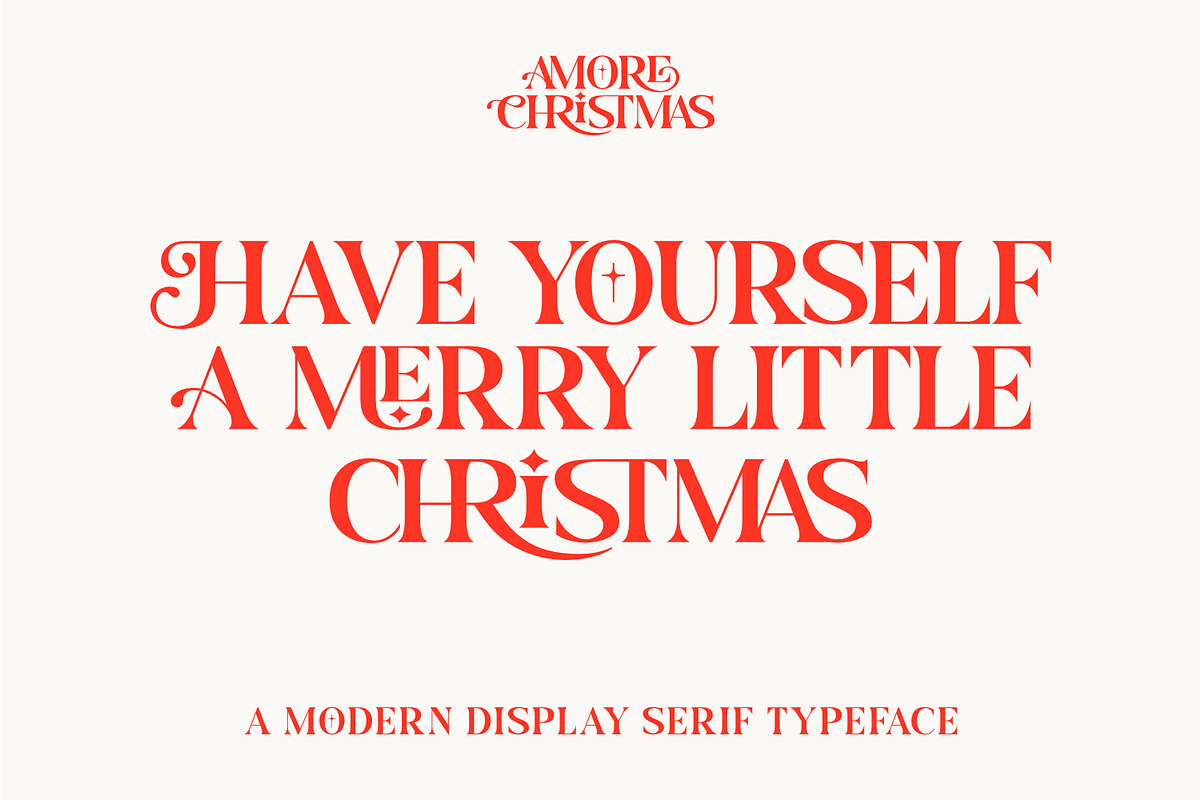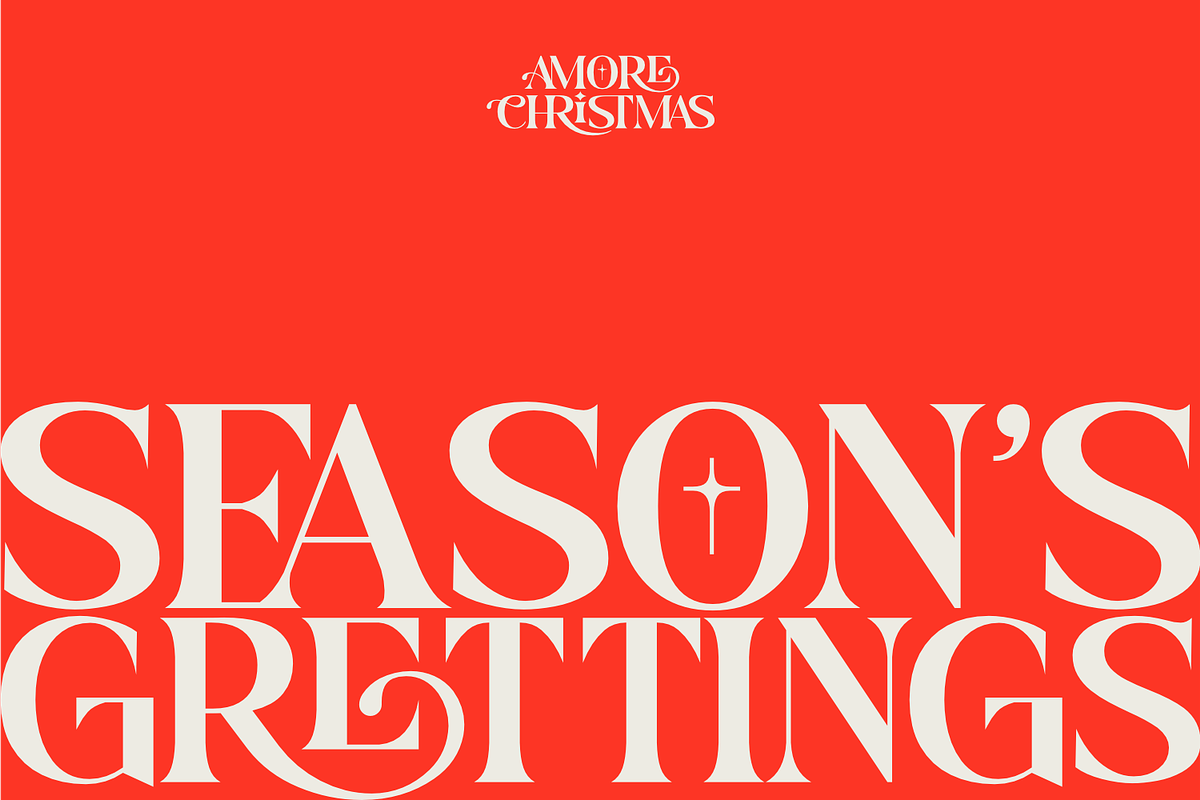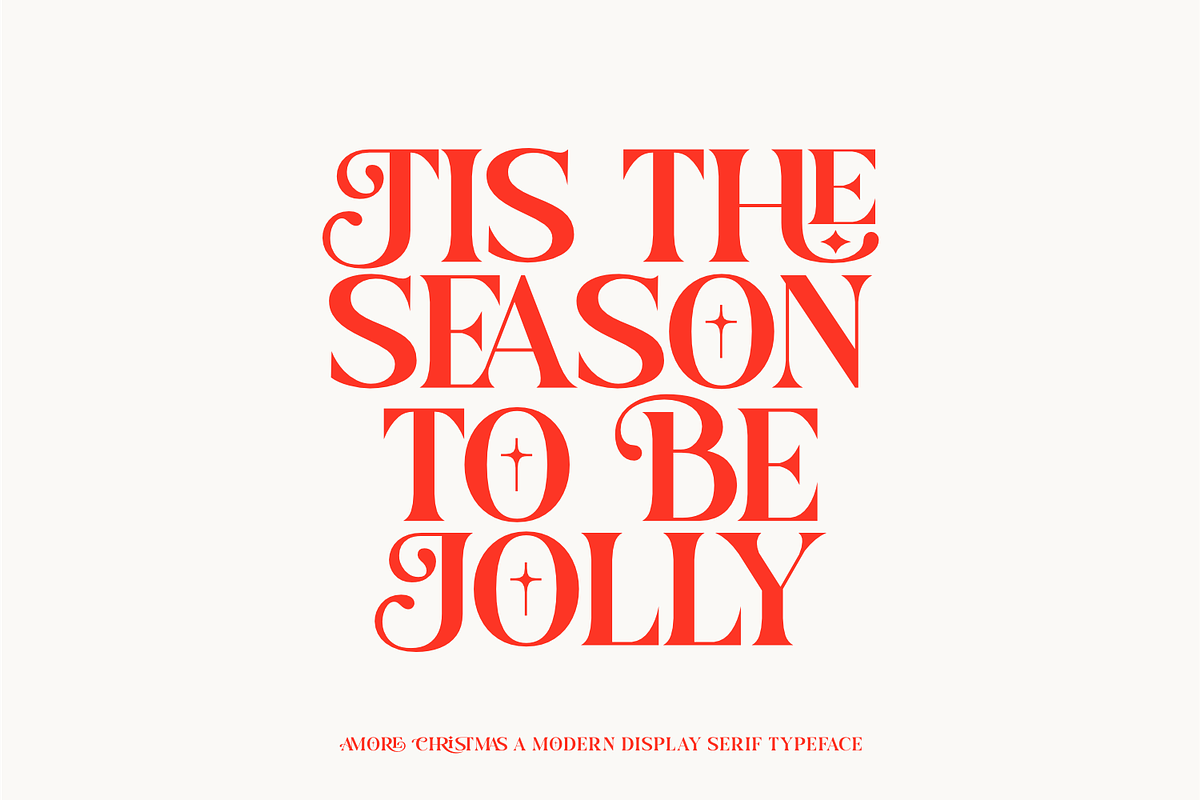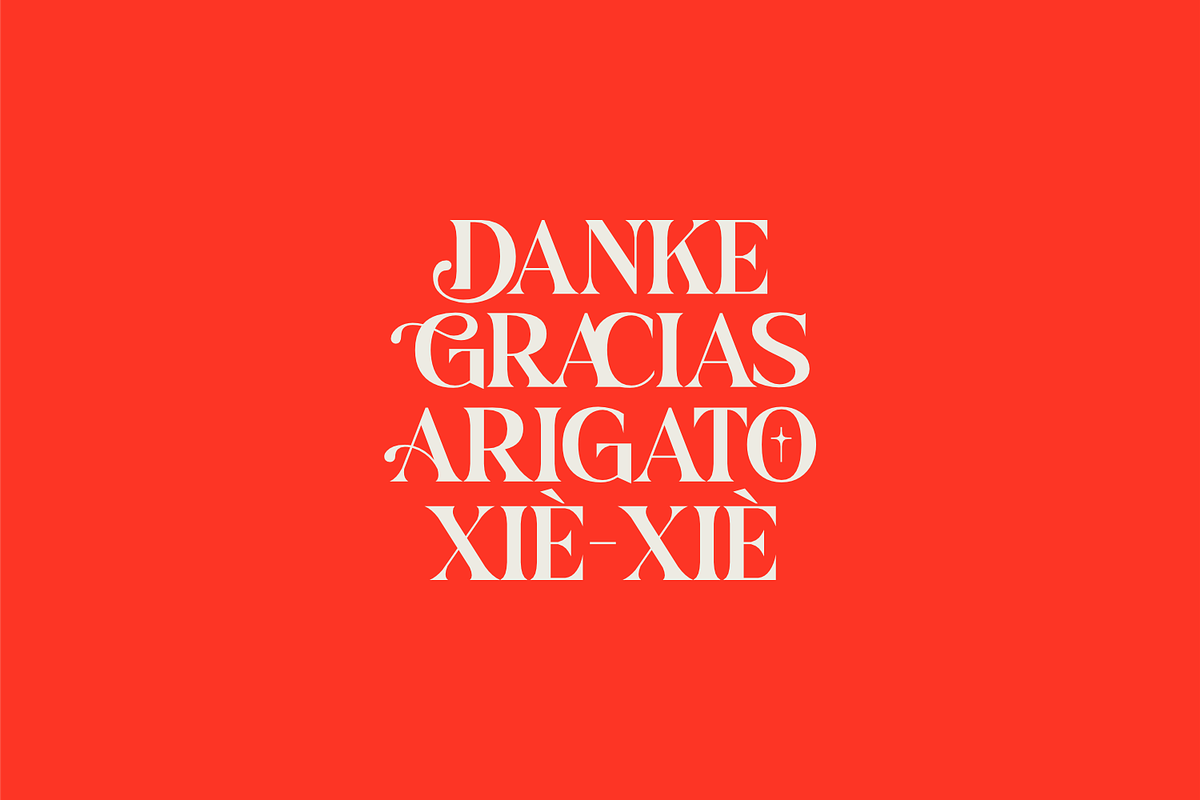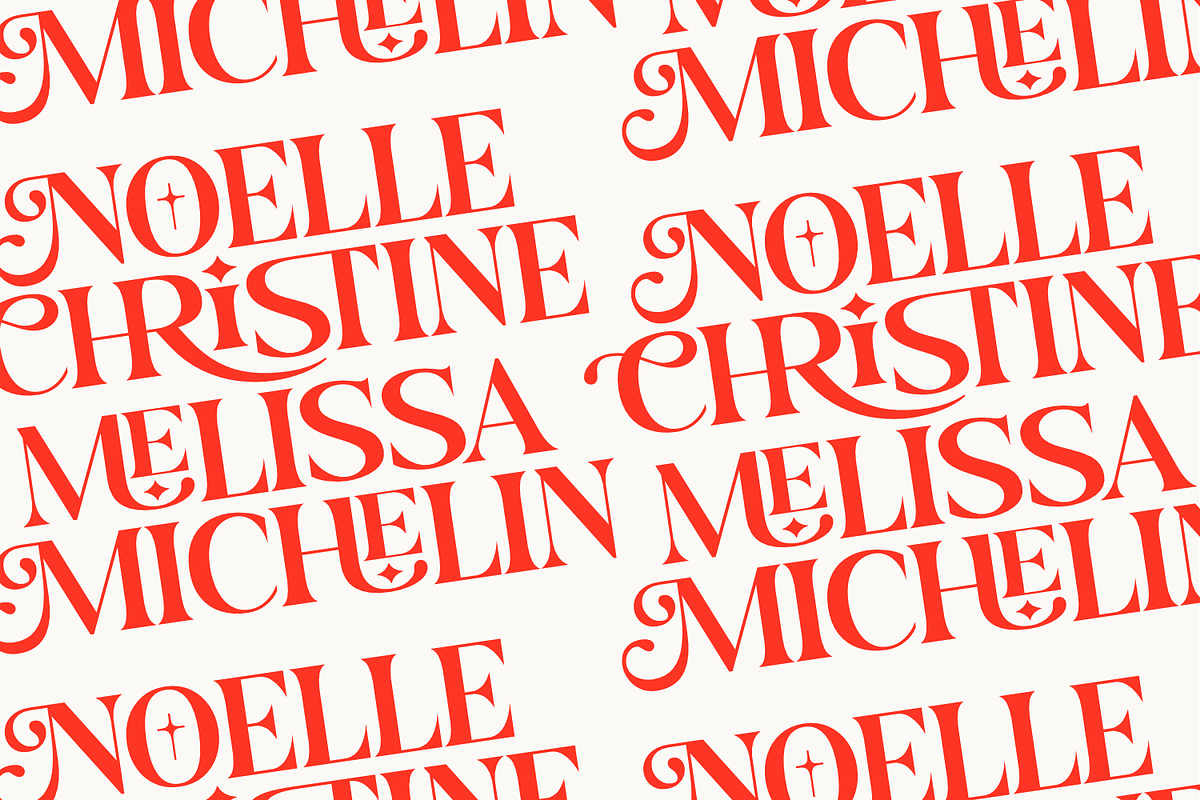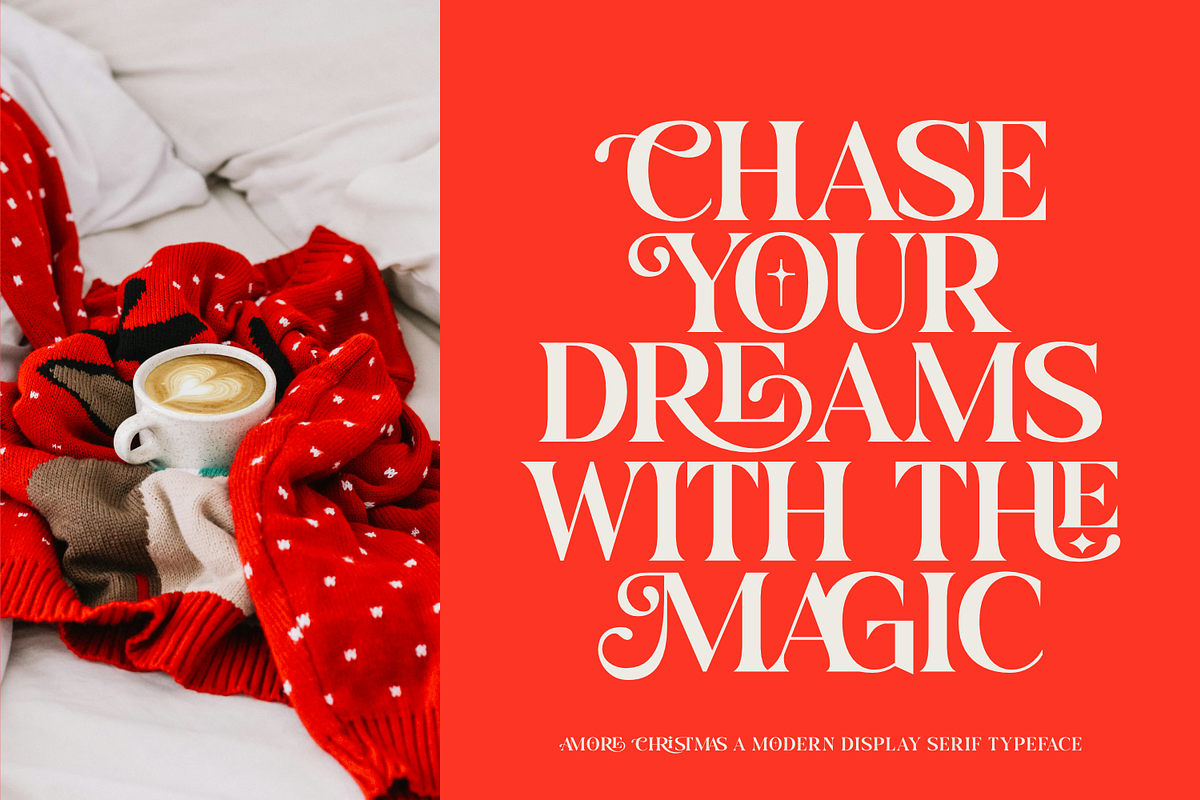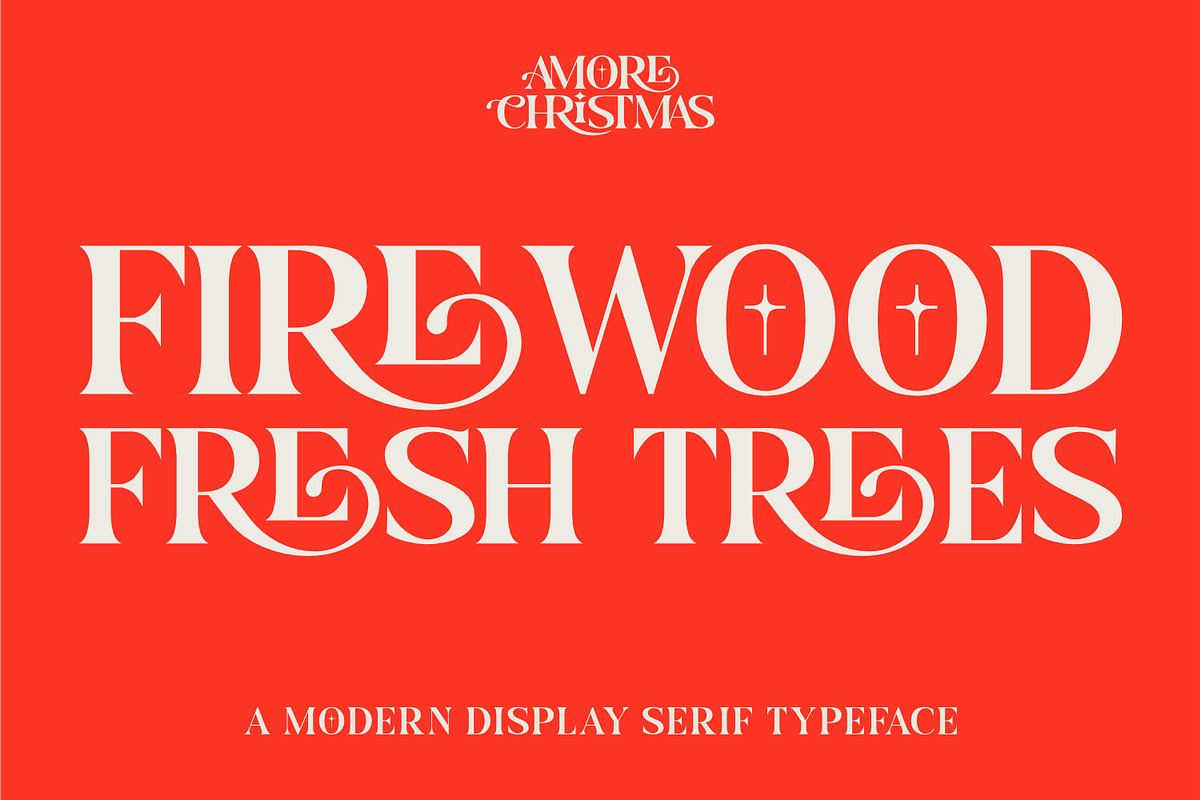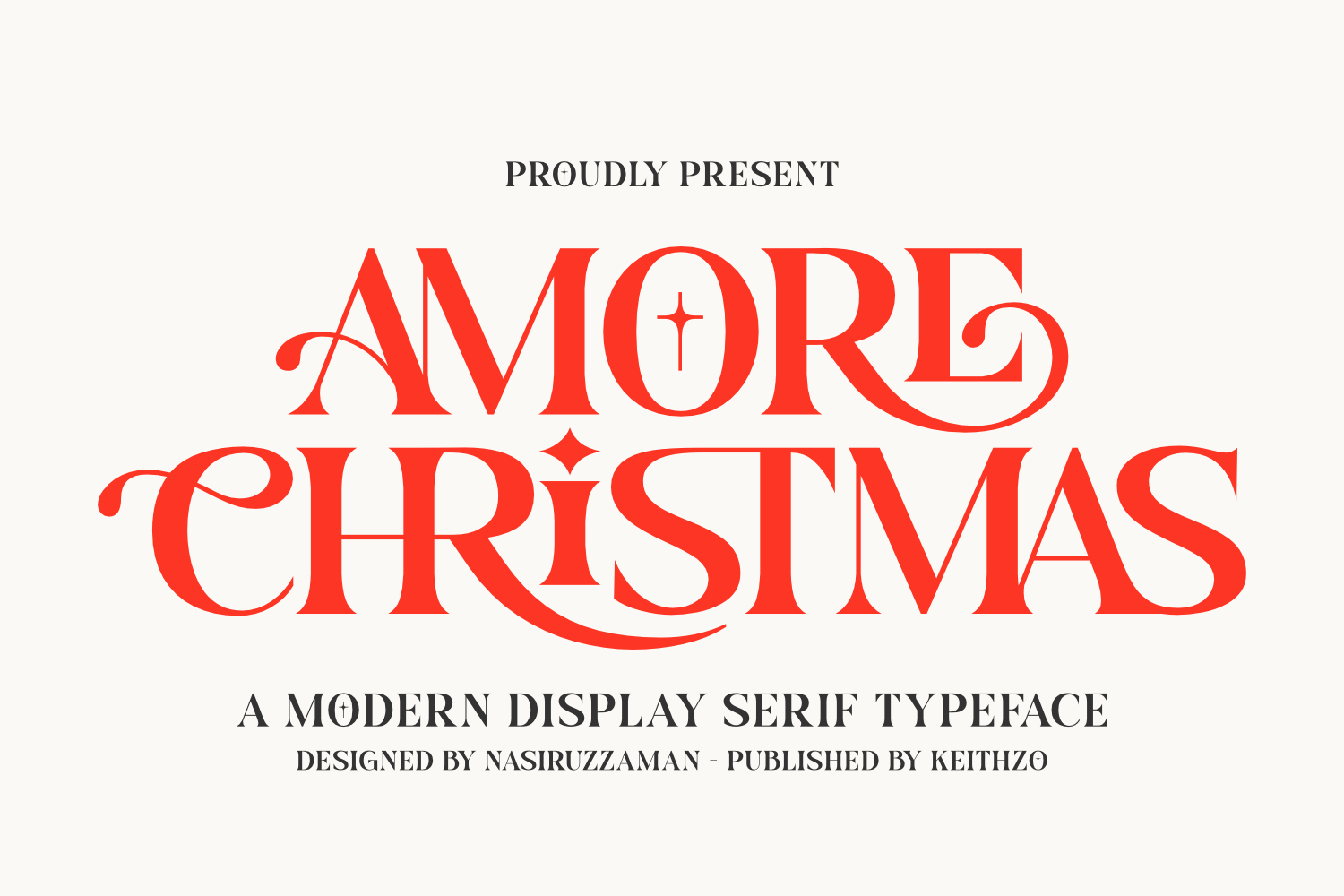
Amore Christmas - Christmas Font
Immerse yourself in the festive spirit with Amore Christmas. This audacious, display serif font distills the essence of holiday cheer, the warmth of hearth, and the jubilance of the season. With awe-inspiring ligatures, graceful arcs, and inbuilt Yuletide decorations, Amore Christmas is the key to making your holiday designs shimmer with life. It excels in creating high-impact headlines, vibrant seasonal promotions and Christmas-themed menus that resonate. Unleash the feel of treasured holiday memories and warmth in your brand identity, and let it echo the celebration of the season with Amore Christmas.